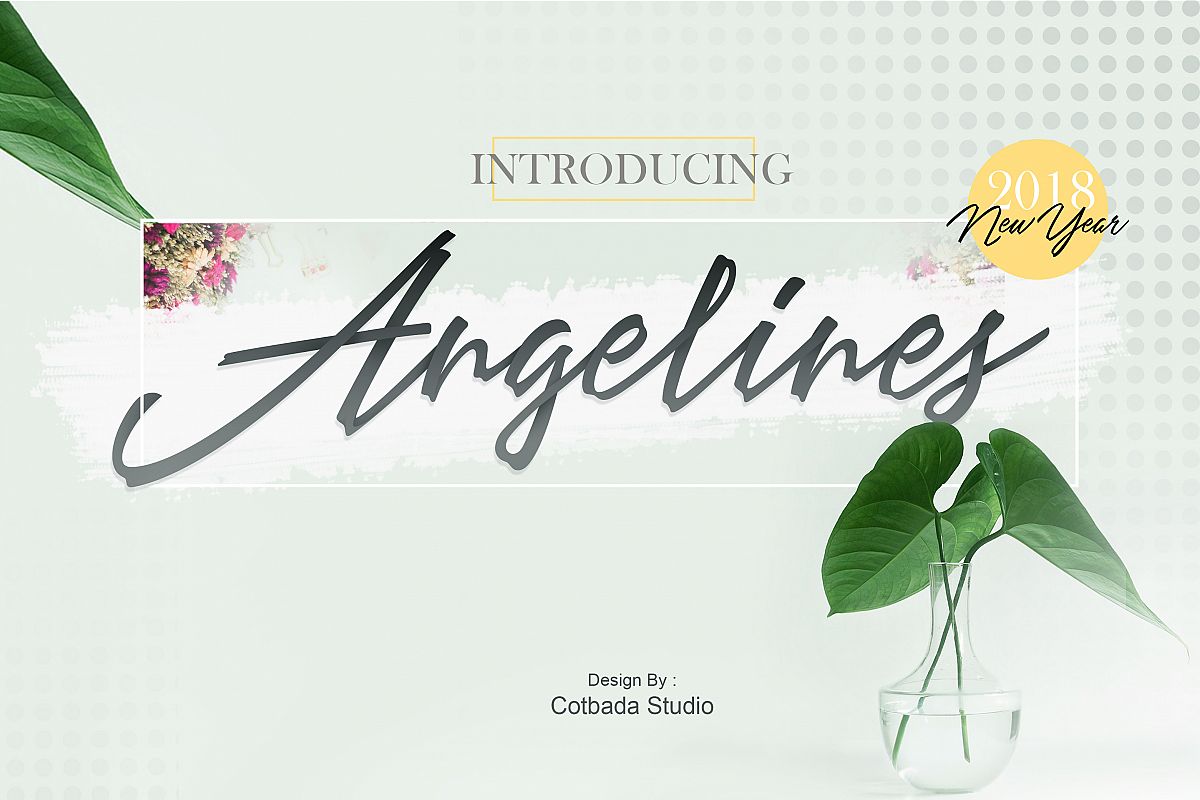
Angelines Script
AngelinesScript
Angelines Script Font, a handmade font awesome, new fresh & modern script with a calligraphy style. Can used for anything from promotional material and handwritten quotes, to product packaging, labels,logo newsletters, posters, merchandise and branding projects. Font supports and includes: 1.Standard Opentype Contextual 2.alternates Stylistic 3.alternate Swash and Punctuation TTF and .OTF To enable the Open Type Stylistic alternates, you need a program that supports OpenType features such as Adobe Illustrator CS, Adobe Indesign & CorelDraw X6-X7. I hope you all enjoy with this stuff. Thank you